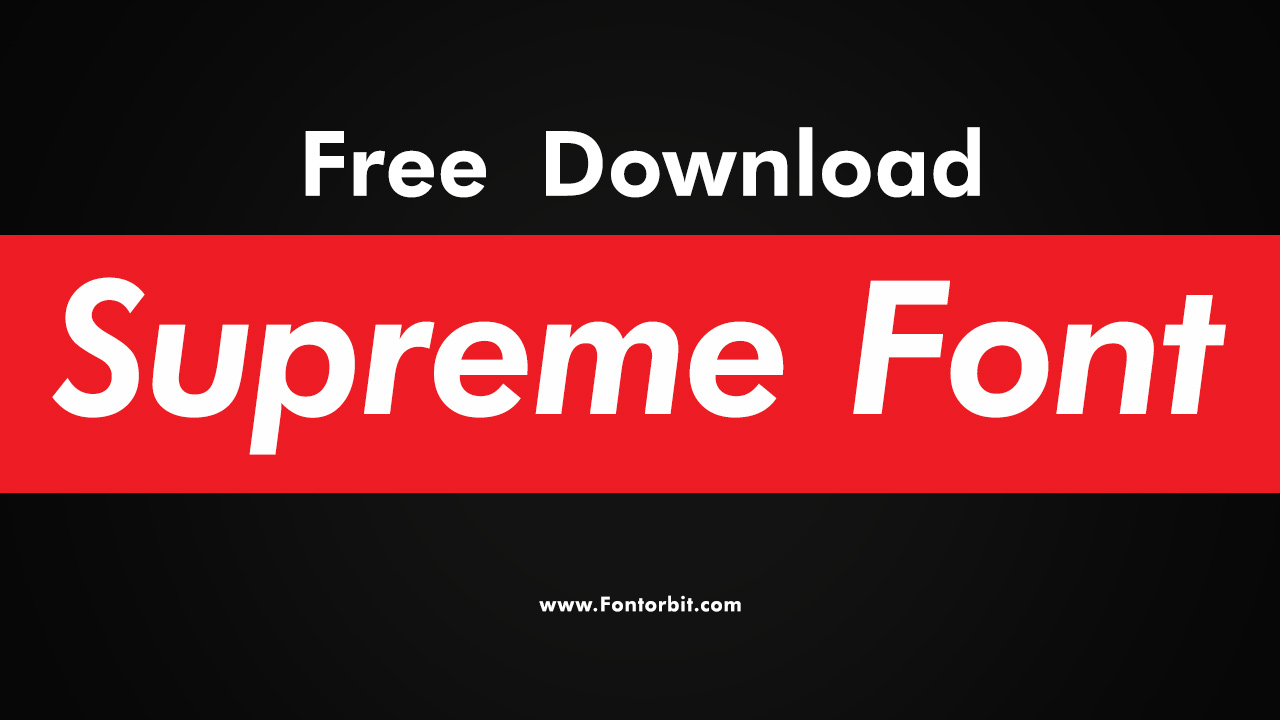
The Supreme Font is closely associated with the iconic streetwear brand Supreme, renowned for its deep roots in skateboarding, hip hop, and urban culture.
The font used in the Supreme logo bears a strong resemblance to Futura Heavy Oblique, designed by Paul Renner. This bold and italicized typeface captures the brand’s distinctive aesthetic, making it perfect for adding a modern, impactful touch to your projects.
The Supreme Font Family
This display typeface excels in creating strong visual impressions, making it ideal for bold headlines, striking logos, and dynamic branding. Its clean and modern design elements provide a sleek and energetic effect, enhancing visual appeal with a touch of urban flair.
Supreme Font is particularly effective for applications that require a bold and contemporary style. Its design is well-suited for fashion-related projects, sports branding, and any context where a strong and modern aesthetic is desired.
Supreme Font’s clean and bold design makes it an excellent choice for urban and youth-oriented branding projects. Its resemblance to Futura Heavy Oblique adds a contemporary and impactful touch to various applications, ensuring it stands out and captures attention.
1.What Is The Supreme Font?
The Supreme Font is a typeface similar to Futura Heavy Oblique, used in the Supreme logo for its bold, modern, and impactful design.
3.What Font Does Supreme Use?
Supreme’s logo uses a typeface similar to Futura Heavy Oblique, known for its bold and italicized style, which enhances its modern, urban branding.
4.What Is The Name Of The Font Used In This Brand?
The font used in the Supreme brand logo is closely related to Futura Heavy Oblique.
5.What Differentiates The Supreme Font From Other Typefaces In Streetwear Branding?
The Supreme Font stands out with its bold, italicized style and clean, modern look. It offers a strong visual impact that aligns with urban and streetwear aesthetics.